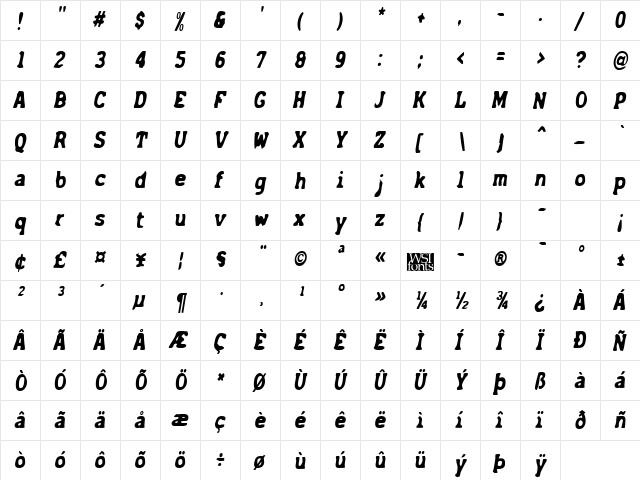
AcckCondensed Italic Font Preview
Design Context for AcckCondensed Typeface
AcckCondensed is a composed and adaptable typeface that performs quietly and consistently across a wide range of design contexts. The slanted form adds forward momentum and visual energy. The condensed width makes it efficient for tight spaces without sacrificing legibility.
Pro Tip: Try AcckCondensed for annotation and caption copy alongside an upright companion — the contrast in angle creates a dynamic but ordered typographic system.